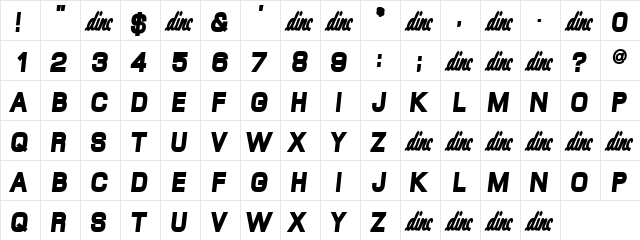
Fishboy Regular
Design Context for Fishboy Typeface
Fishboy offers clean, dependable letterforms without strong stylistic allegiance, making it a practical choice for designers who need flexibility.